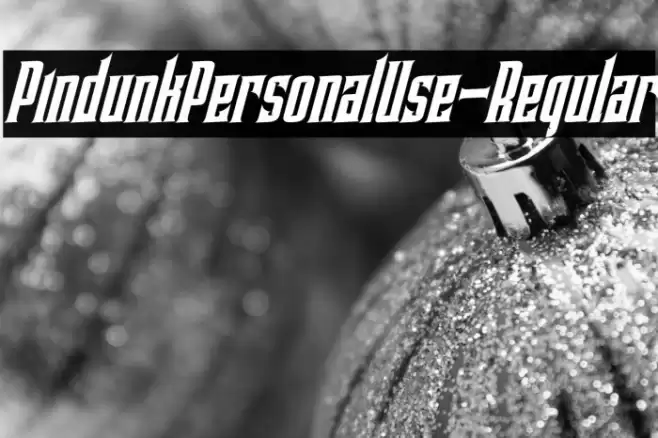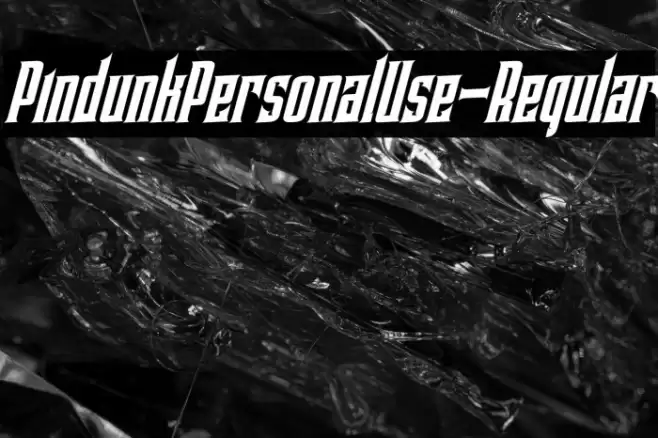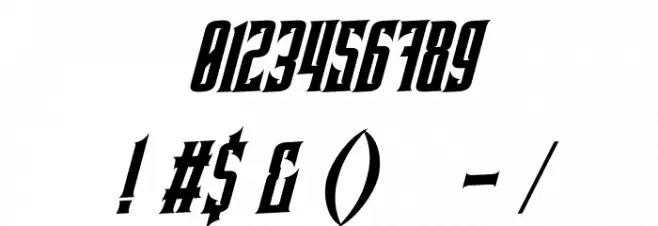
PindunkPersonalUse-Regular Font
PindunkPersonalUse-Regular Description
This font features a bold and dynamic design with sharp, angular edges and a forward-leaning slant, giving it a sense of motion and energy. The uppercase and lowercase letters maintain a consistent style, with exaggerated serifs and a slightly condensed form. Numbers and special characters follow the same aesthetic, ensuring uniformity across all elements. The font's aggressive and modern appearance makes it stand out, ideal for projects that require a strong visual impact.
A bold, angular font with a dynamic, forward-leaning slant from Regular fonts.
- Proposed Projects: Perfect for sports branding, posters, and dynamic logo designs.
- Character Spacing: Tight